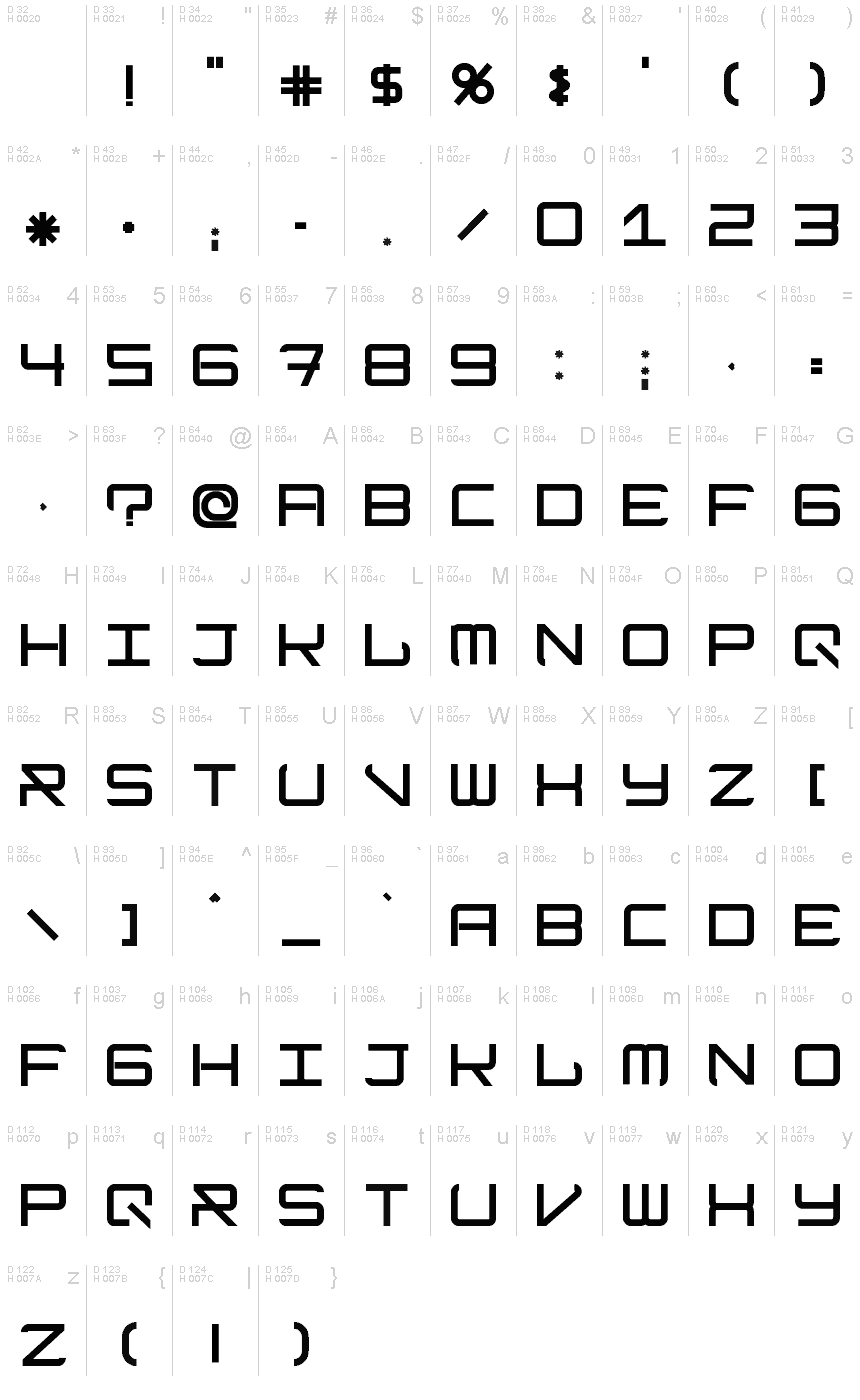
ModernismBold
Modernism Bold is a striking display font that exudes a distinct techno-inspired aesthetic. Designed by renowned typographer Max Infeld, this expanded font captivates with its bold, angular letterforms and sharp, geometric features.
The expansive width adds a sense of power and presence, making it an ideal choice for headings, logos, and other display-oriented design elements. Its bold, futuristic style lends itself seamlessly to a wide range of applications, from high-tech branding and digital interfaces to editorial layouts and concert posters, imbuing each project with a sense of cutting-edge modernity.